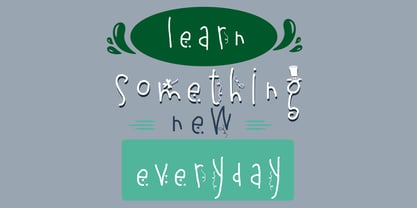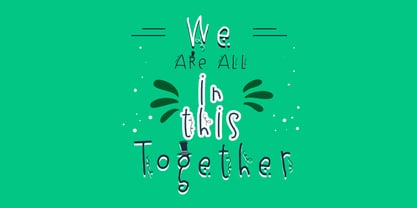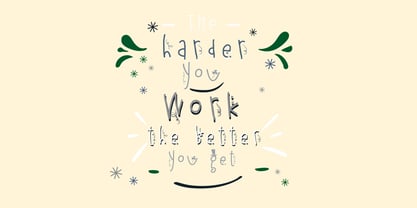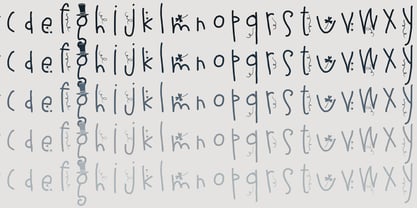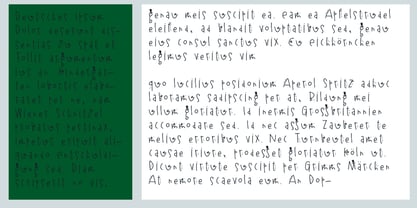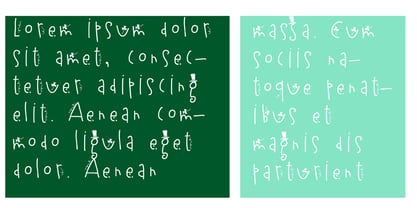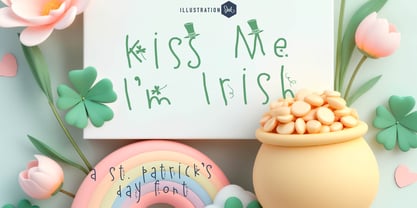
ZP Kiss Me Im Irish
by Illustration Ink
The ZP Kiss Me Im Irish Font Family was designed by Illustration Ink and published by Illustration Ink. ZP Kiss Me Im Irish contains 7 styles and family package options. More about this family
This hand-crafted serif is whimsical, bouncy, and fun and sporting Irish hats and shamrocks. A hand-crafted font is a font that is designed to look like it was written by hand. It is often used for invitations, greeting cards, and other items. Handwritten fonts can be either formal or informal, and they can be used for a variety of purposes. Some of the characteristics of handwritten fonts include: The letters are not perfectly uniform in size or shape. There may be slight variations in the spacing between letters and words. The font may have a "wiggly" or "squiggly" appearance. The font may be difficult to read at small sizes. Handwritten fonts can be a great way to add a casual touch to your designs. They can also be used to create a sense of nostalgia or whimsy. However, it is important to choose a handwritten font that is appropriate for the project you are working on. A formal handwritten font may not be appropriate for a casual invitation, while an informal handwritten font may not be appropriate for a corporate document.
ZP Kiss Me Im Irish